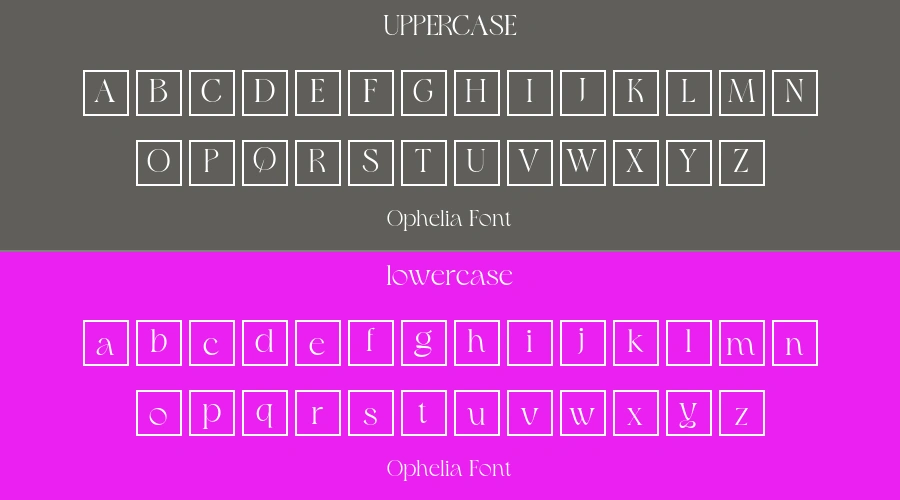
About Ophelia Font
Ophelia Font embodies typographic excellence through its masterful combination of geometric precision and refinement. Created for engineering specs, this typeface delivers exceptional adaptability and artistic merit across all applications. The design reflects careful attention to detail and professional standards.
Advanced capabilities include distinctive graceful transitions and versatile arrow sets, giving designers creative control. When used in featured quotes, Ophelia Font exhibits remarkable color application. The harmonious balance between letterfit and regulatory compliance sets this typeface apart.